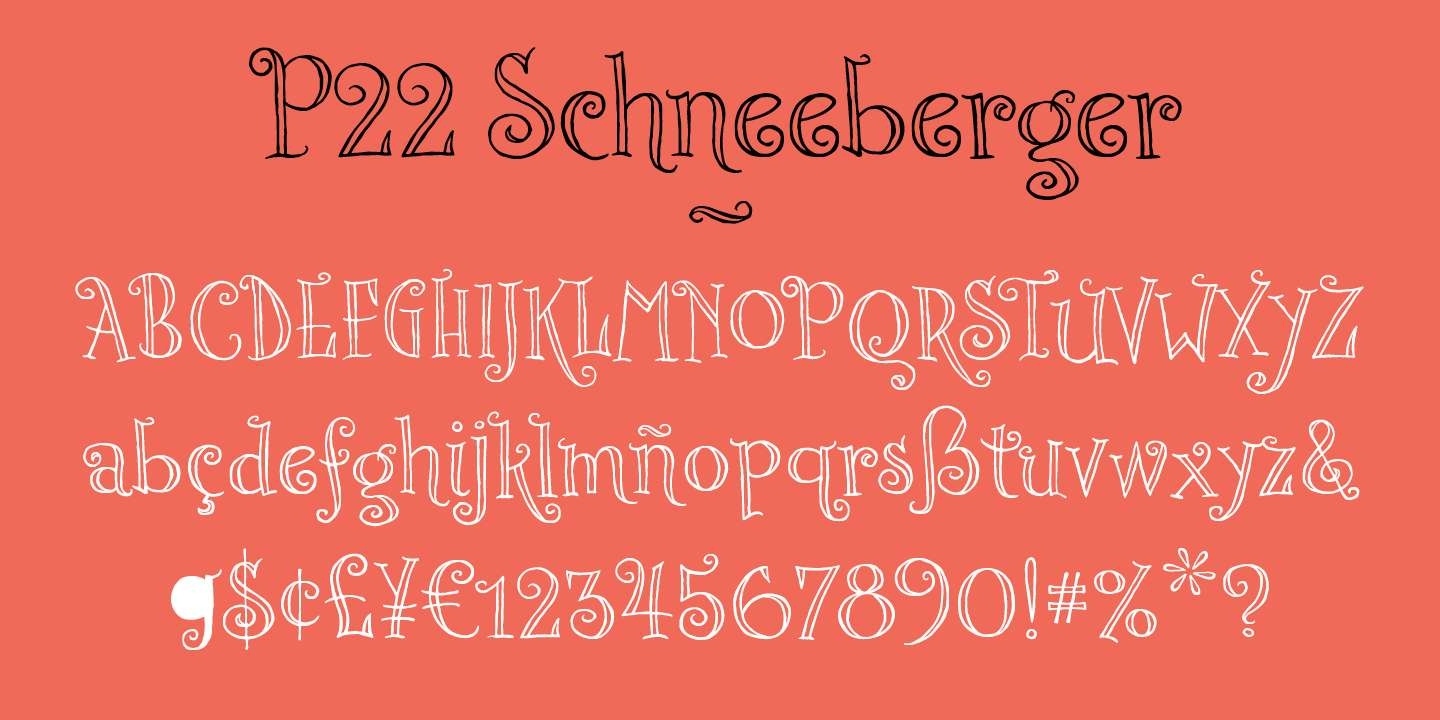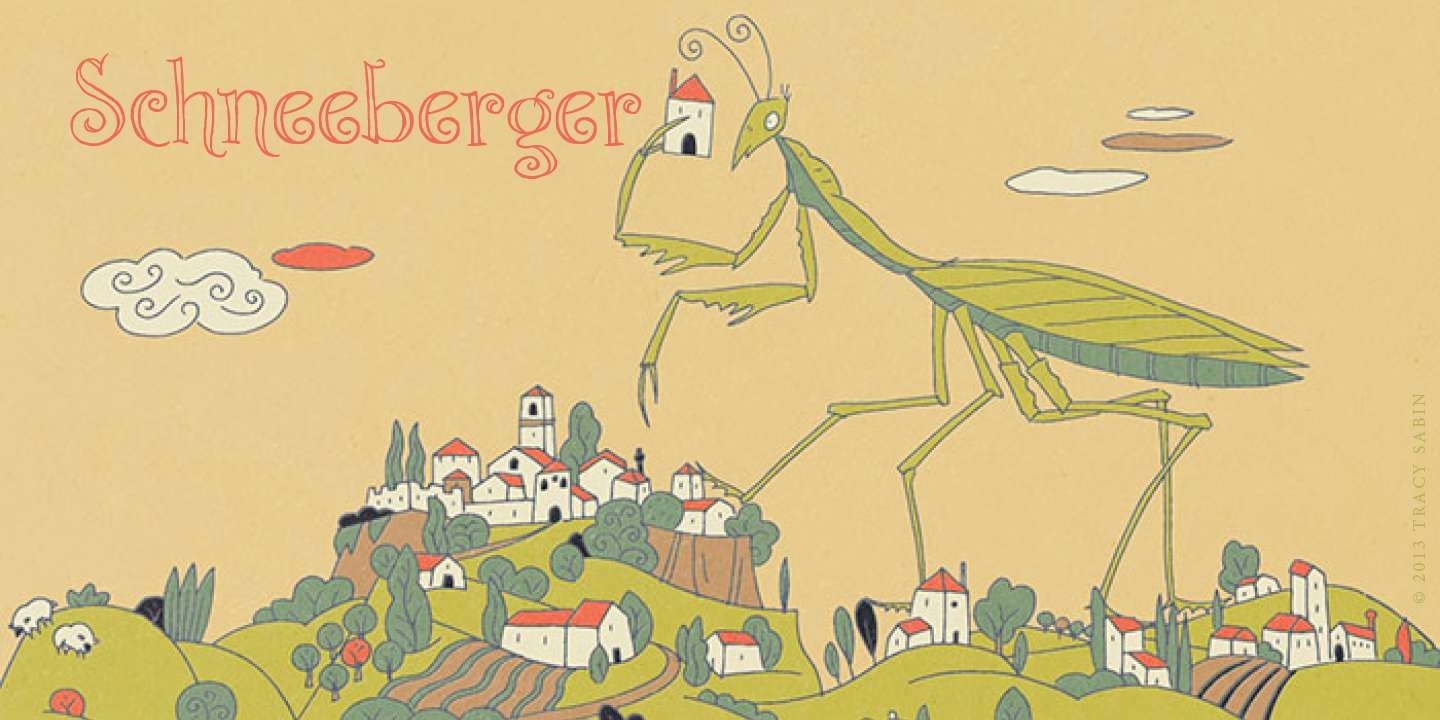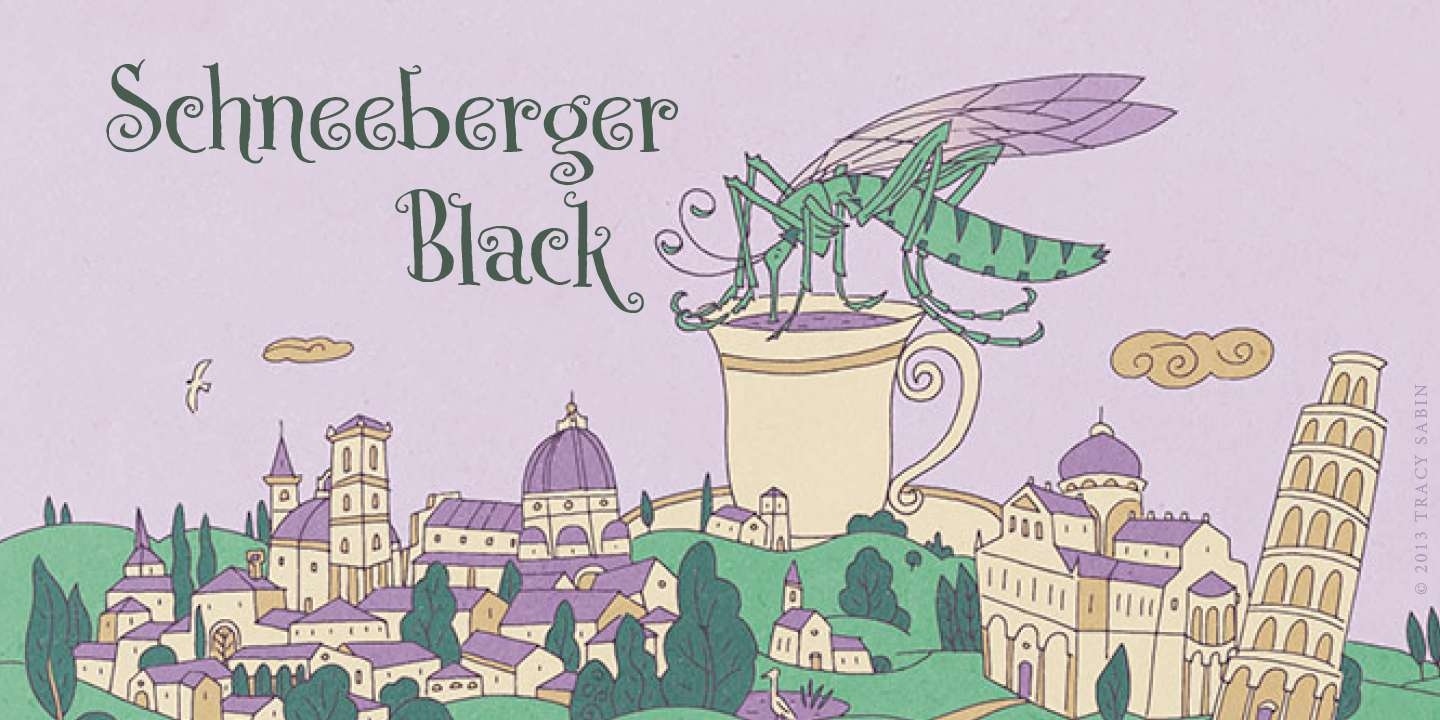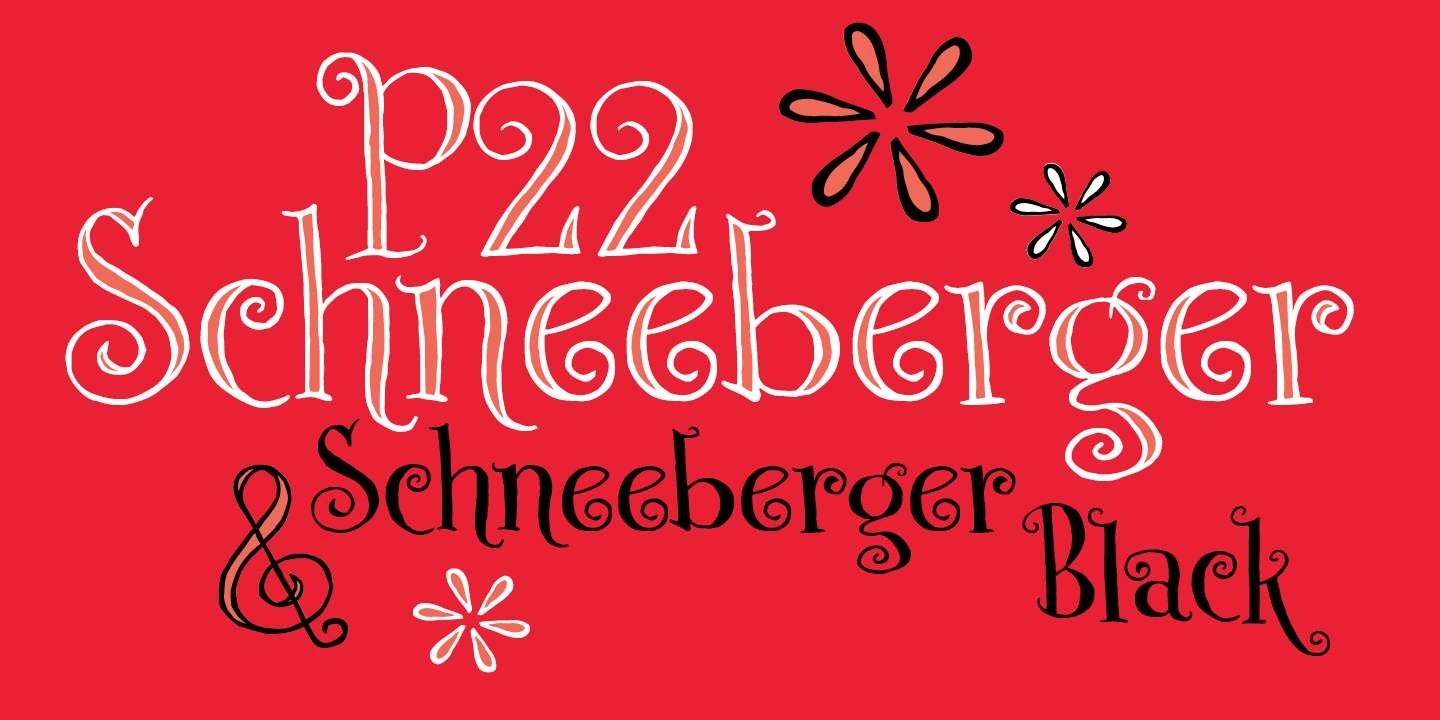
P22 Schneeberger Font
P22 Schneeberger Font is perfect for Swiss design projects, alpine tourism branding, precision engineering materials, Swiss watchmaking presentations, mountain resort communications, Germanic cultural exhibitions, artisan craft branding, traditional clockmaking workshops, heritage museum displays, and authentic Swiss hospitality marketing.
What makes P22 Schneeberger Font so exciting is its masterful embodiment of Swiss precision and alpine craftsmanship that captures the meticulous attention to detail and unwavering quality standards of traditional Swiss artistry through sophisticated typographic design. This meticulously crafted typeface features precisely engineered letterforms with Swiss-inspired proportions and craftsman-quality character variations that immediately convey reliability, heritage, and the timeless excellence of Alpine traditions. The font's precision construction and artisanal aesthetic create an instant sense of Swiss authenticity and master craftsman quality, making it ideal for projects that need to communicate traditional excellence, precision manufacturing, and the enduring value of Swiss heritage to audiences seeking authentic quality and time-honored craftsmanship traditions.
The P22 Schneeberger Font family typically includes multiple precision weights and artisanal styles, often featuring light, regular, and bold variations along with carefully crafted italic versions. Swiss-inspired font collections frequently offer additional Alpine elements such as mountain symbols, traditional ornaments, and heritage decorations that enhance the authentic Swiss aesthetic and provide designers with comprehensive tools for creating genuinely traditional and culturally respectful communications.
The Swiss authenticity of P22 Schneeberger Font makes it particularly effective for targeting demographics that value traditional craftsmanship and precision manufacturing in their personal and professional choices. Heritage brand managers and artisan marketers will find this font especially valuable for materials that must establish immediate quality credibility and connect with audiences seeking authentic traditional experiences and meaningful cultural connections.
What sets P22 Schneeberger Font apart is its ability to convey traditional precision while maintaining the elegance necessary for effective luxury communication. This refined characteristic makes it suitable for both heritage craft applications and contemporary luxury contexts where projecting Swiss quality and maintaining sophisticated appeal must work together seamlessly.
Professional designers recognize that P22 Schneeberger Font brings invaluable Swiss credibility to projects across industries including precision manufacturing, luxury goods, heritage tourism, and traditional crafts. Its artisanal character and Alpine appeal make it essential for organizations whose mission centers on preserving, celebrating, and sharing Swiss cultural heritage and traditional craftsmanship with discerning global audiences.
The carefully preserved Swiss authenticity of P22 Schneeberger Font ensures consistent heritage messaging across all tradition-focused communication applications while honoring the timeless principles of Swiss quality and Alpine craftsmanship.